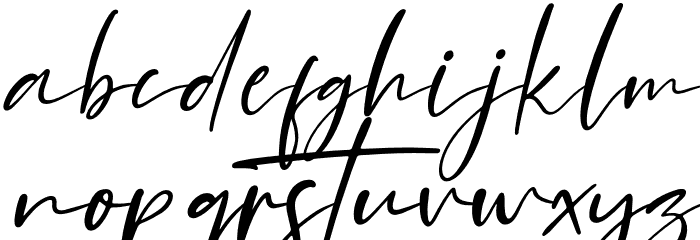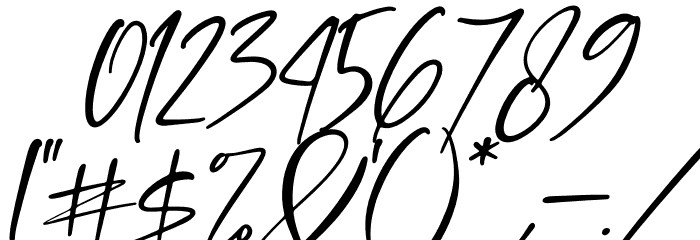
Mantilda Edition Italic Font
This font features a flowing, cursive style that exudes elegance and sophistication. The letters are connected in a smooth, continuous manner, giving it a handwritten appearance. The uppercase letters are slightly more elaborate, with flourishes that add a touch of flair. The lowercase letters maintain a consistent flow, enhancing readability while retaining a stylish look. Numbers and special characters are designed to match the overall aesthetic, ensuring uniformity across all text. The font's italic nature adds a dynamic, forward-leaning energy, making it suitable for creative and expressive projects.
A flowing, cursive italic font with elegant, connected letters.
- Font: Mantilda Edition Italic
- Proposed Projects: Ideal for wedding invitations, greeting cards, personal branding, and artistic projects.
- Category: Script
- Overall Style: Elegant
- Use Case: Logos, Invitations, Artistic projects